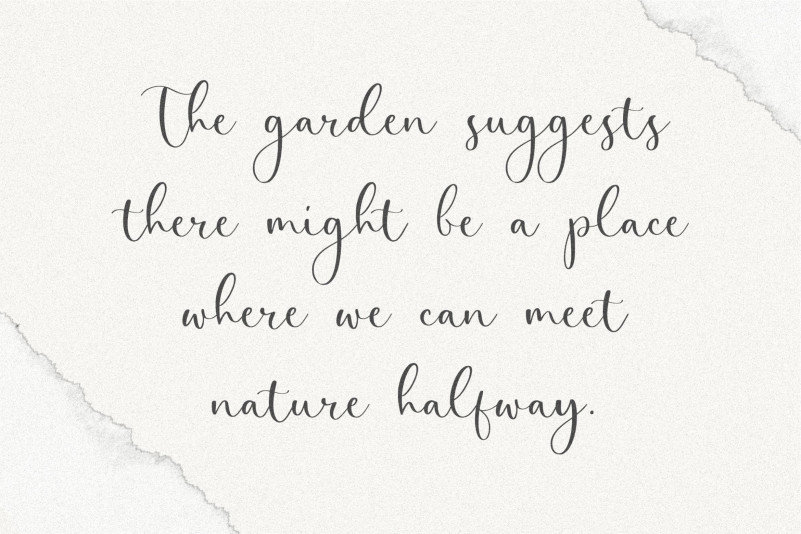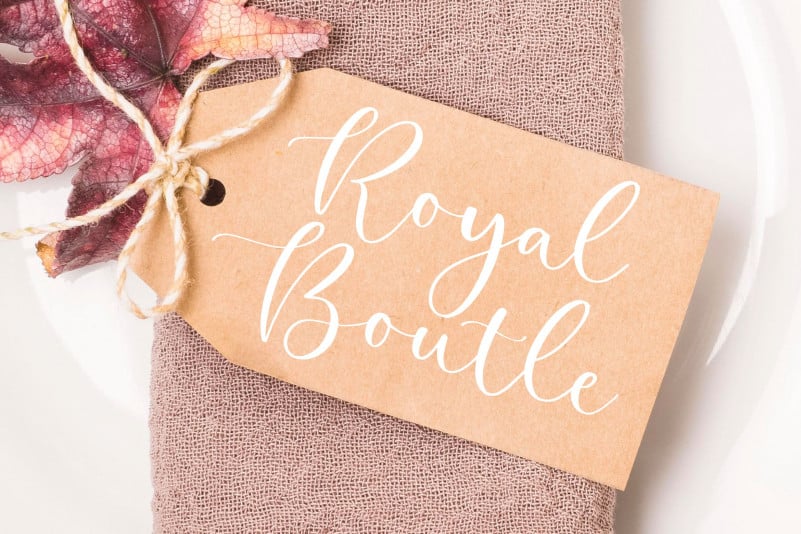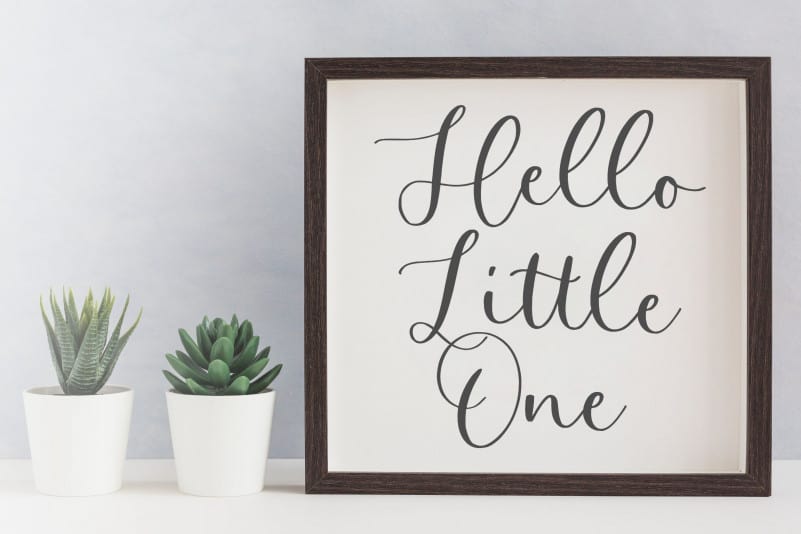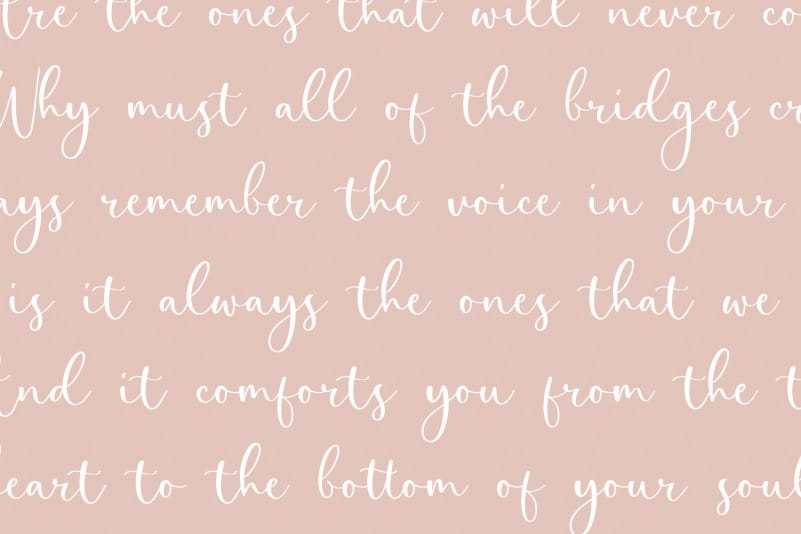
Perfect Garden Modern Handwritten Font
Proudly Present, Perfect Garden Modern Handwritten Font.
Perfect Garden is a Modern Handwritten Font.
Perfect Garden is perfect for product packaging, branding project, megazine, social media, wedding, or just used to express words above the background.